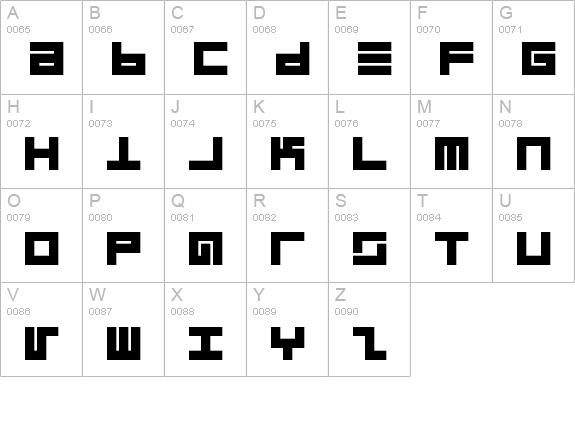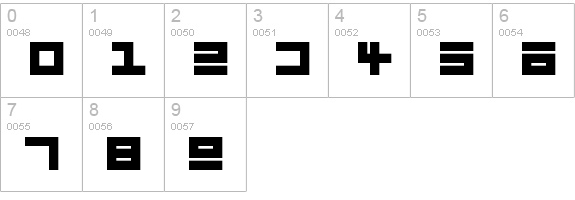
Epps Evans Black is a maximum-weight, dramatic variant in the Epps typeface family \xE2\x80\x94 well suited to maximum-impact headlines, posters, and packaging.
Epps Evans Black font is a bold and eye-catching typeface that exudes elegance and sophistication. With its sleek and modern design, this font is perfect for creating impactful headlines, logos, and branding materials. The strong and distinctive letterforms of Epps Evans Black make it stand out from the crowd and leave a lasting impression on viewers. What's even better is that Epps Evans Black font is available for free download at FontsMarket.com. This means that you can easily access this stylish font and use it in your projects without any cost. Whether you're a designer looking to add a touch of class to your work or a business owner in need of a striking visual identity, Epps Evans Black font is sure to meet your needs. Download it today and elevate your designs with this stunning typeface.